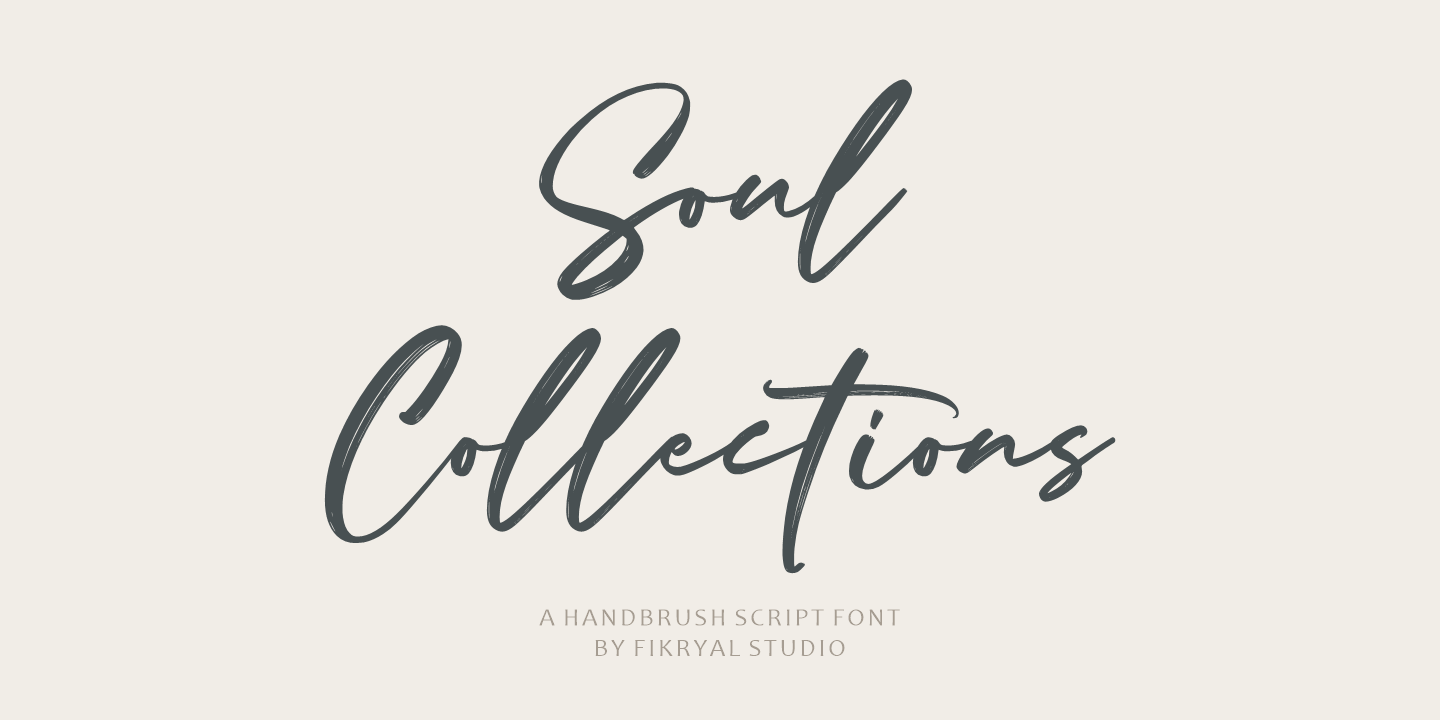
Soul Collections Font is perfect for spiritual wellness centers, mindfulness meditation branding, soul-focused coaching services, inspirational book publications, sacred art gallery communications, transformational workshop materials, spiritual retreat marketing, and conscious lifestyle brand campaigns. This transcendent typeface excels in applications where spiritual depth, soulful authenticity, and transformational wisdom are essential for connecting with audiences who seek meaningful inner growth and appreciate the profound journey of spiritual awakening and soul discovery.
What makes Soul Collections Font so exciting is its profound embodiment of spiritual authenticity and soulful wisdom that perfectly captures the essence of inner transformation and the sacred collection of life experiences that shape our spiritual journey. The font features flowing, expressive letterforms with spiritual characteristics that evoke sacred texts and mindful contemplation. Its transcendent character conveys depth, authenticity, and spiritual wisdom - essential qualities for brands serving soul-seeking audiences, spiritual practitioners, and conscious individuals who value inner growth, sacred wisdom, and the transformational power of spiritual practices and soulful living.
The Soul Collections Font family includes multiple spiritual weights and consciousness-inspired variations that enhance its transcendent appeal. Some versions feature subtle sacred geometry elements and flowing characteristics that reflect spiritual energy and meditation practices, while others provide refined variants that maintain the font's soulful character with enhanced readability for professional spiritual applications and commercial consciousness-focused communications.
Whether you're creating branding for spiritual services, designing materials for consciousness organizations, or developing marketing campaigns for transformational experiences, Soul Collections Font Free Download provides the authentic spiritual authority your project requires. The font's soulful character makes it particularly effective for brands targeting spiritual seekers and audiences who appreciate inner wisdom, sacred practices, and the profound beauty of spiritual transformation and conscious living.
Gather sacred wisdom with Soul Collections Font and transcend ordinary communications with typography that celebrates the profound journey of spiritual awakening and soulful transformation.